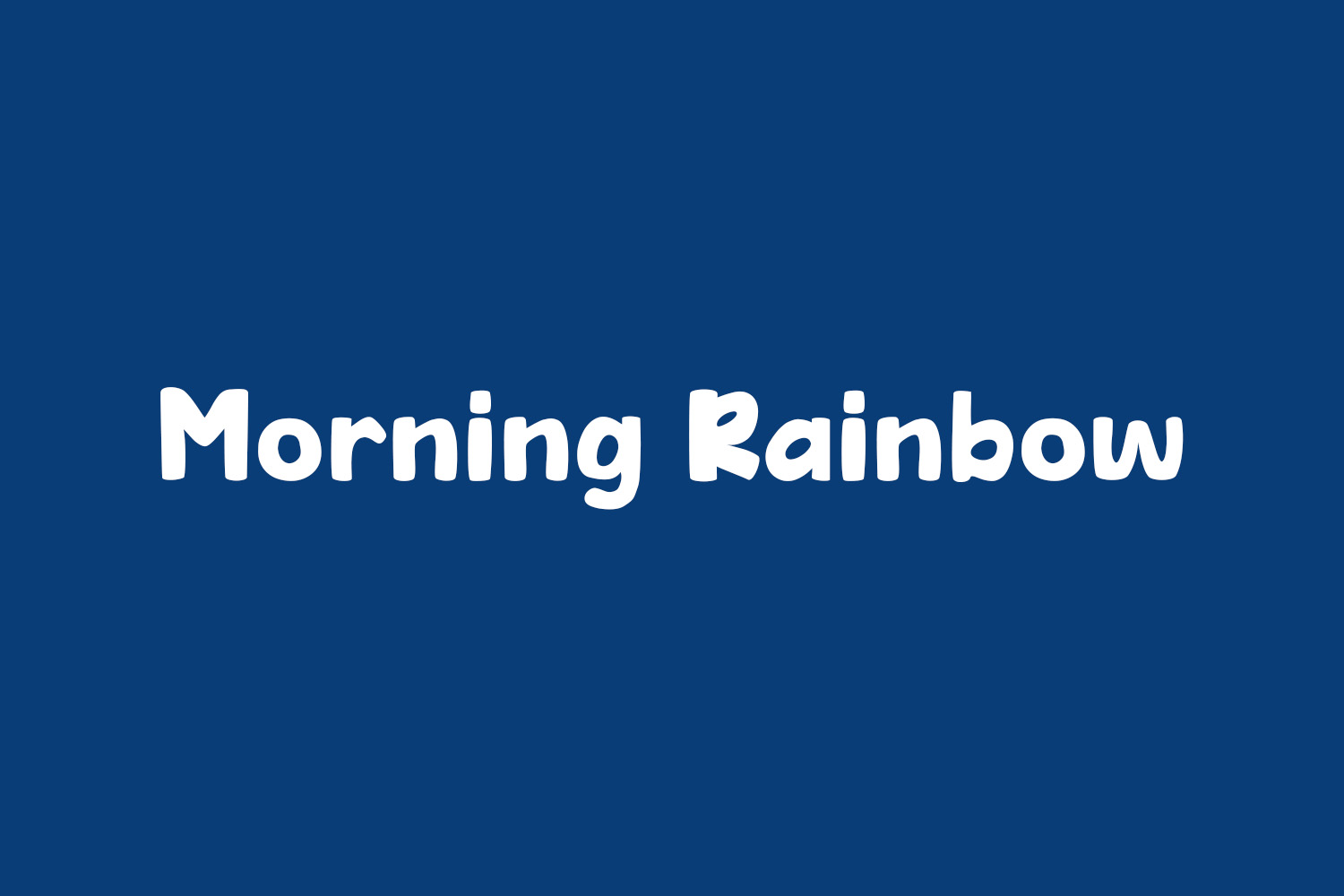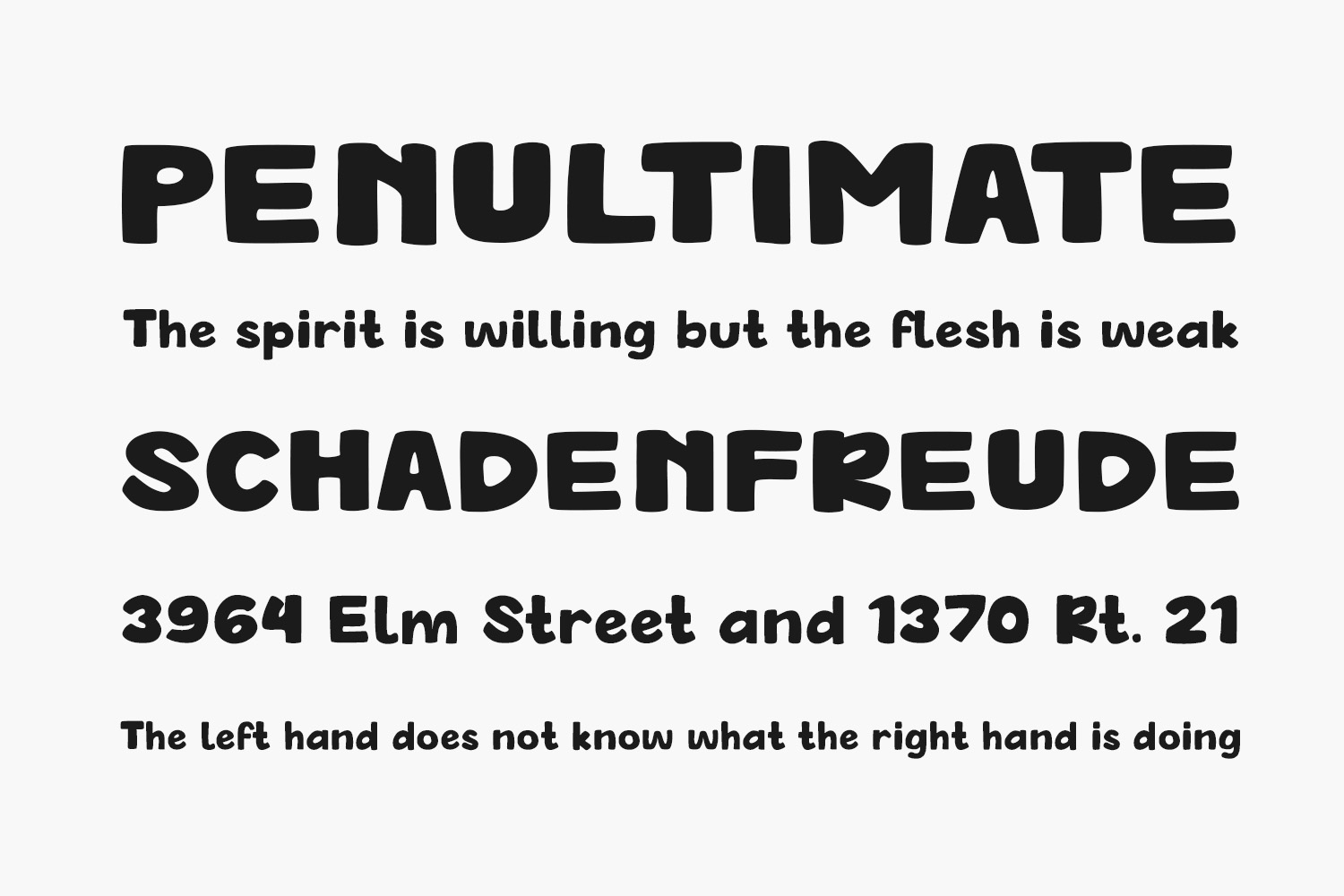
Morning Rainbow Free Font is a fun, bold, and cool-looking display font. Add this playful typeface to children-themed designs, product promotion, signage, labels, and more. Morning Rainbow Free Font was designed by Morning Rainbow and is free for personal use only. Please purchase the full version for commercial use.